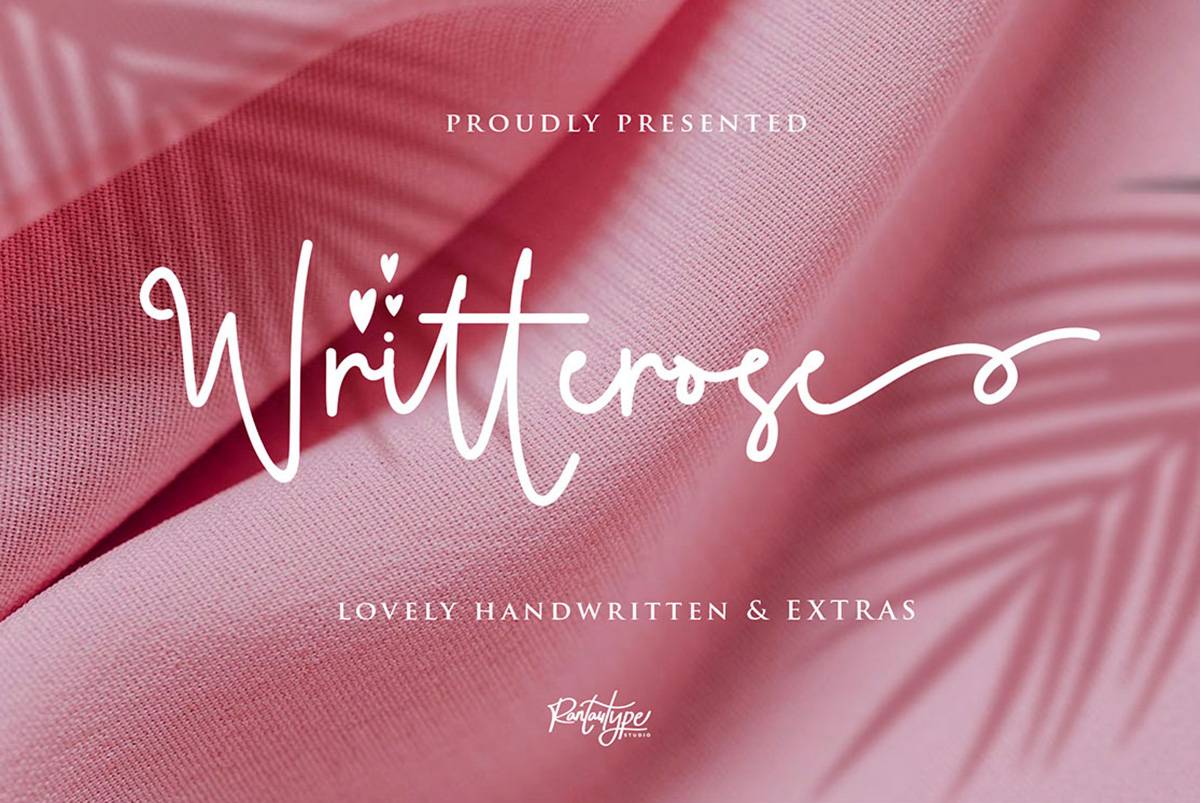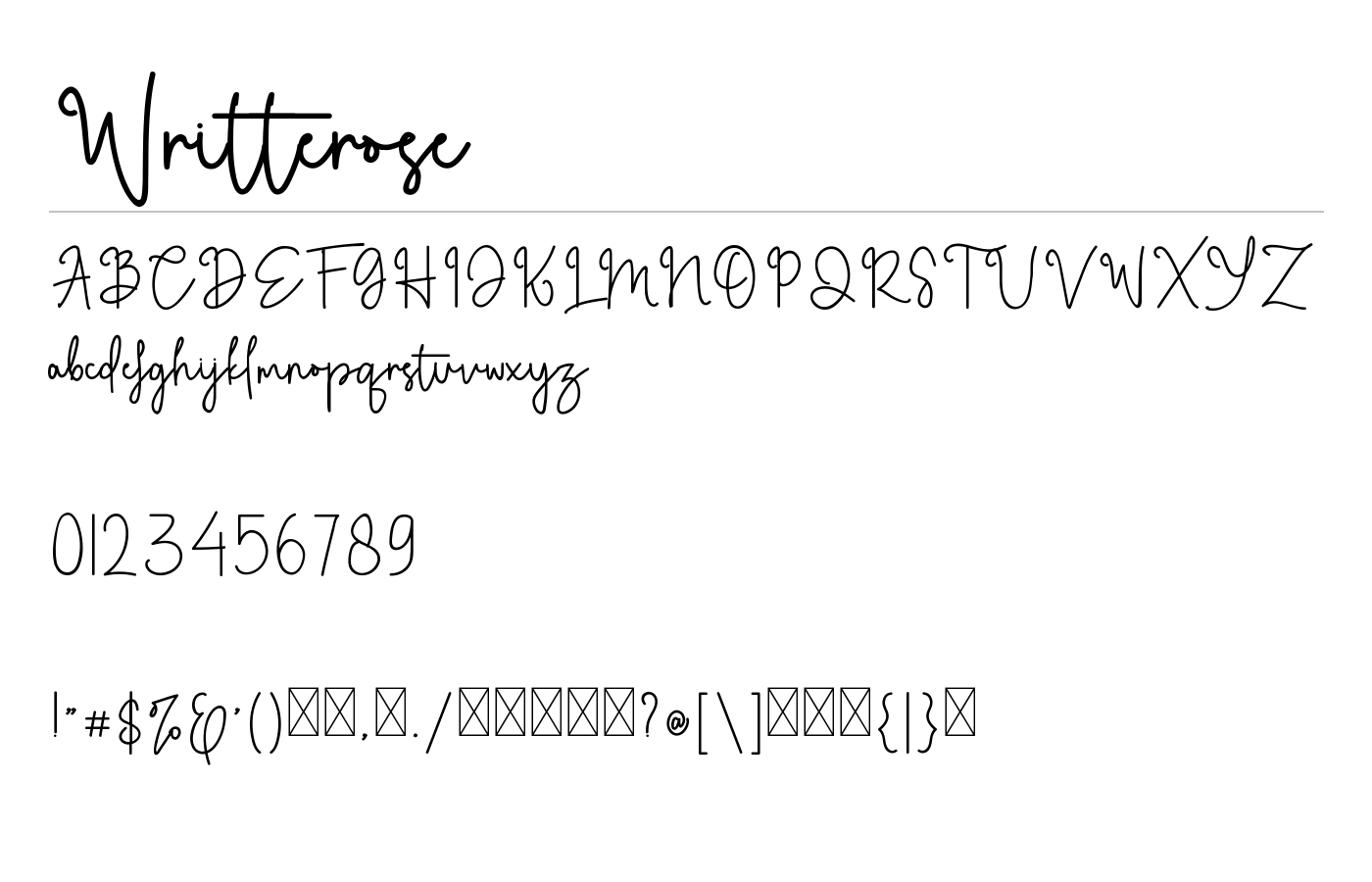
Writterose is a charming handwritten script font with a delicate and playful style, featuring smooth, flowing strokes and a casual, friendly feel. Its tall, slender letters with generous spacing make it perfect for creative projects like invitations, branding, and social media, where a personal and approachable touch is desired. This font works best in headlines or accents, adding warmth and personality to any design.
Writterose Font
About Writterose Font
| Font family | Writterose Font |